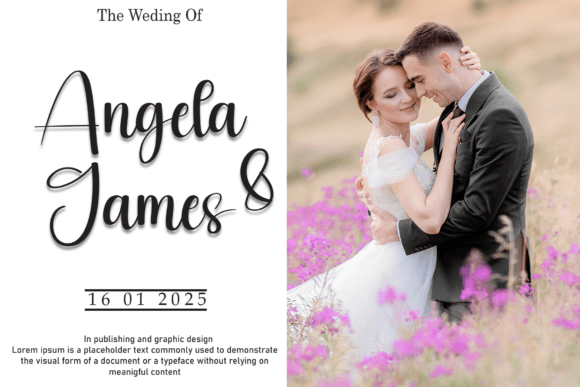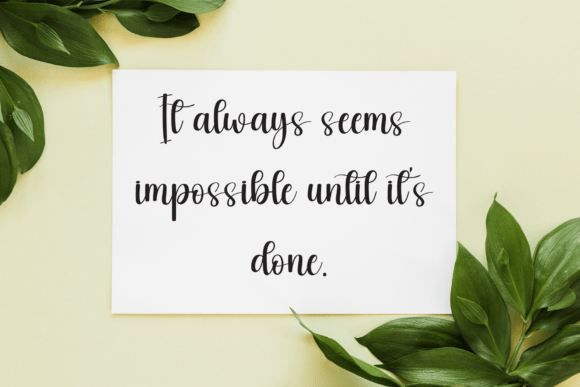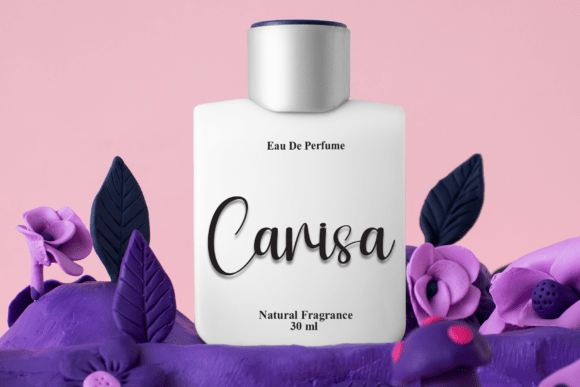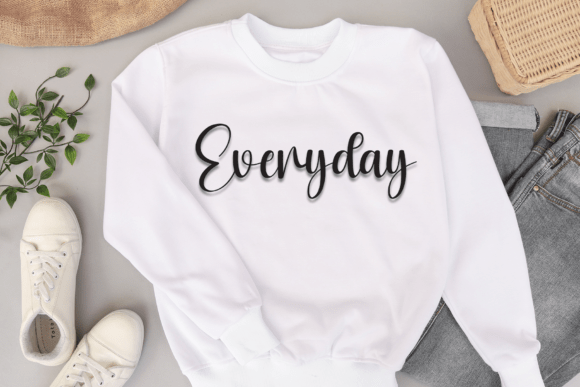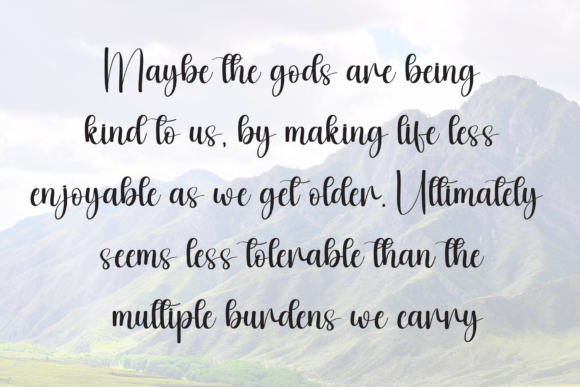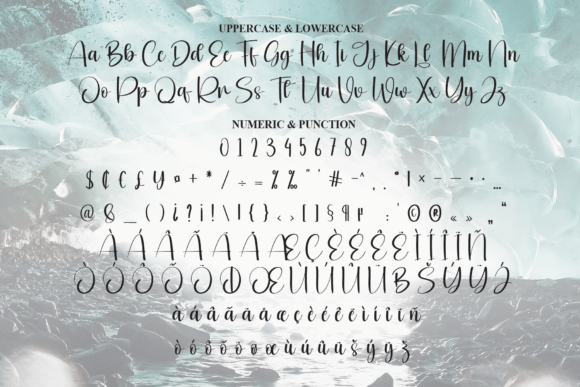
Unleash Your Imagination with Fantasy Font
Have you ever sat down with a blank canvas, a spark of creativity, and a pen in hand, waiting for the perfect idea to flow? That’s exactly what happens when you work with the right tools. For designers, finding the perfect font can be the difference between a mediocre project and a masterpiece. That’s where Fantasy Font comes in – a stylish handwritten script font that combines elegance with a modern flair.
This versatile typeface is perfect for branding, invitations, and social media, adding a personal, refined touch with effortless charm. Its flowing strokes and organic curves bring warmth and sophistication to any project, making it a valuable asset for designers looking to elevate their work. Whether you’re creating a wedding invitation or a social media campaign, Fantasy Font is sure to help you stand out from the crowd.
Fantasy Font Key Features
- Unique Characteristics: Fantasy Font features a unique, hand-drawn design with intricate details and flourishes, making it perfect for fantasy and science fiction projects.
- Language Support: Fantasy Font supports a wide range of languages, including English, Spanish, French, German, Italian, Portuguese, and many others.
- Character Set: Fantasy Font includes a comprehensive character set, including letters, numbers, punctuation marks, and special characters, making it suitable for a variety of applications.
Fantasy Font Review
Overall, I’d say Fantasy Font is an interesting choice for designers who want to add a touch of magic to their projects. Here’s what I think:
- Unique flair**: Fantasy Font offers a distinctive and whimsical feel that can elevate your designs and set them apart from more traditional fonts.
- High-quality rendering**: The font is well-designed and rendered, making it perfect for use in digital and print projects.
- Wide language support**: Fantasy Font supports a wide range of languages, making it a great choice for international projects.
- Limited legibility**: In smaller sizes, Fantasy Font can be difficult to read, especially for those with vision impairments.
- Not ideal for body text**: Due to its decorative nature, Fantasy Font is best suited for headlines and titles, rather than body text.
While Fantasy Font has its limitations, it’s a great choice for designers who want to add a touch of fantasy to their projects. Just be sure to use it judiciously, reserving it for headlines and titles where its unique flair can shine.
Tips for Getting the Most Out of Fantasy Font
Use Fantasy Font to add a touch of magic to your designs. Experiment with different font sizes, colors, and styles to create a unique look. You can also use Fantasy Font in combination with other design elements to create a cohesive and visually appealing design.
Use Fantasy Font for:
- Creating fantasy-themed posters and graphics.
- Designing book covers and interior pages.
- Adding a touch of magic to presentations and documents.
- Creating fantasy-themed social media graphics and ads.